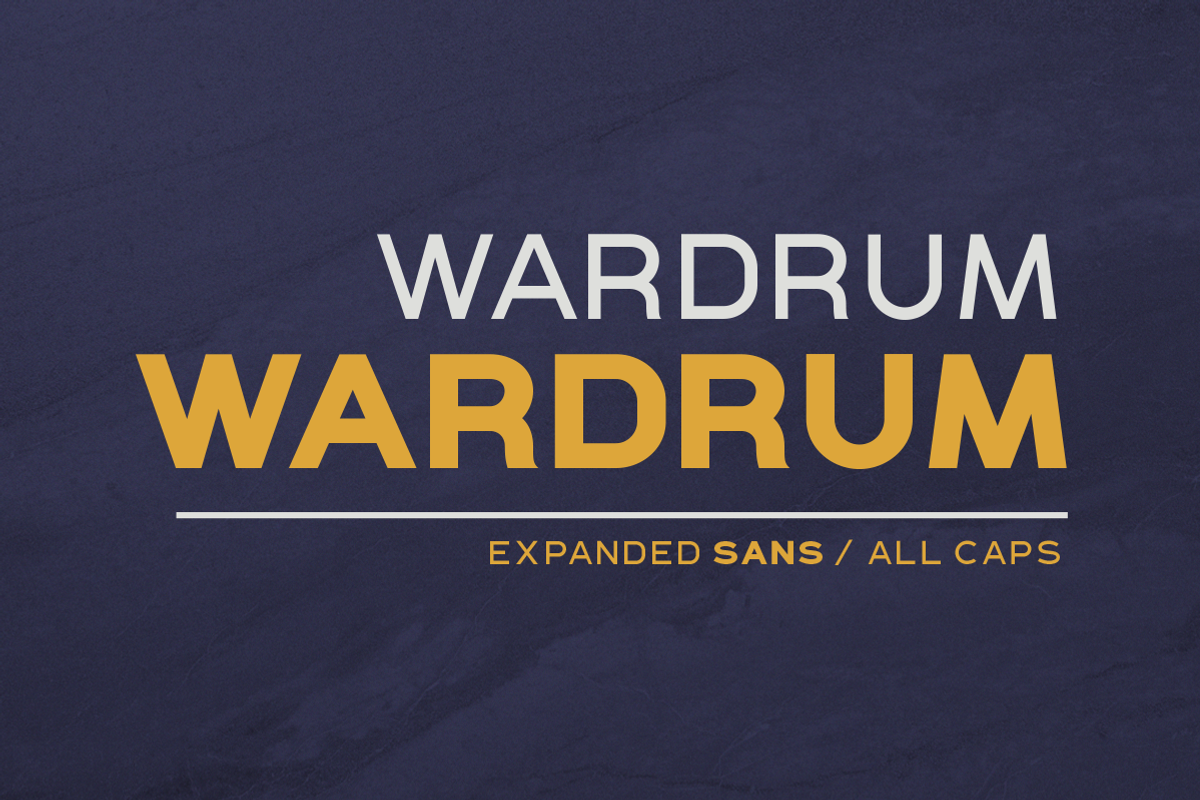
WARDRUM - Expanded Sans Free Download
WARDRUM - Expanded Sans Font Free Download
WARDRUM - Expanded Sans Font Free Download is a bold and dynamic typeface designed with expanded letterforms, creating a powerful and modern look. With its strong geometric shapes and clean lines, this font is ideal for headlines, posters, logos, branding, and any design project that demands attention and impact.
The expanded design of WARDRUM ensures maximum visibility, making it perfect for both print and digital designs that need to stand out. Whether you're working on an edgy branding project or a bold advertisement, this font will add strength and clarity to your message.